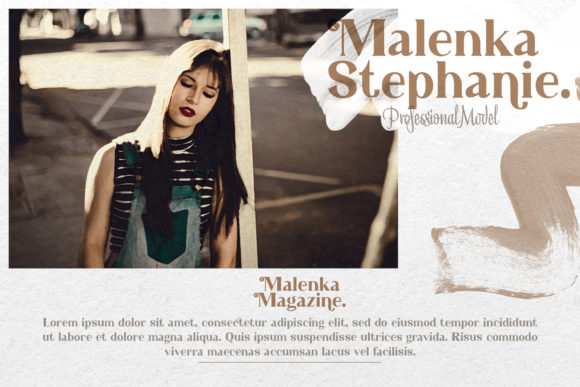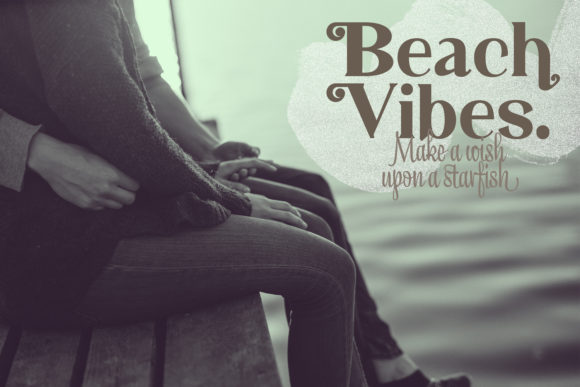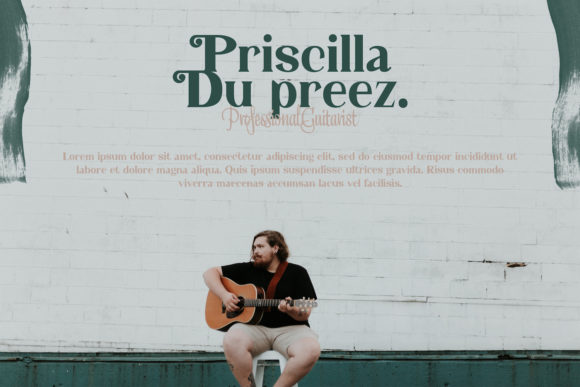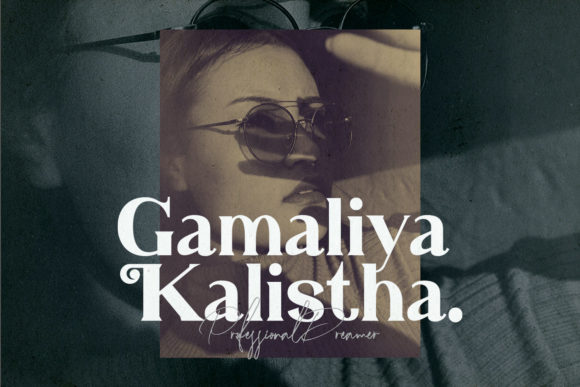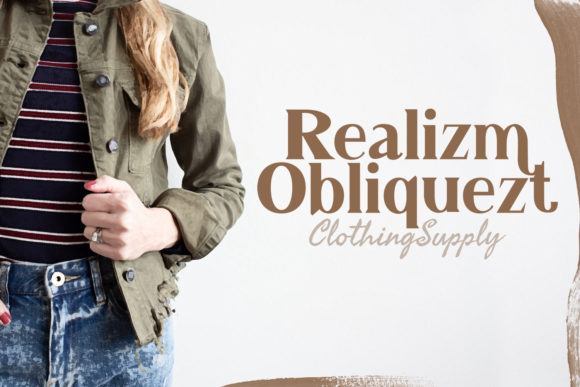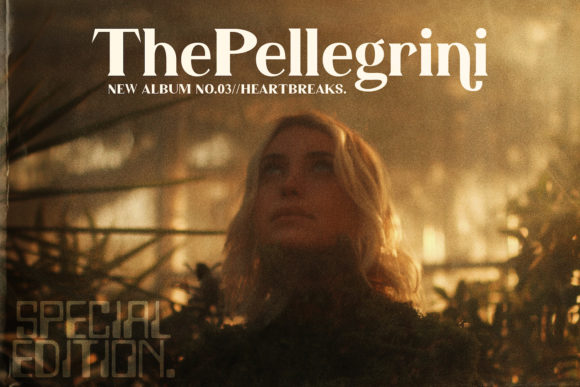
Introduction to Phantom Shrine Font
As designers, we’ve all been there – staring at a blank canvas, waiting for that perfect spark to ignite our creative project. And then, it happens – a font catches our eye, and suddenly, the possibilities seem endless. For me, that font was the Phantom Shrine Font, a stunning serif font that has been a game-changer in my design process.
With its incredibly versatile and stylish look, the Phantom Shrine Font is a design resource that’s hard to resist. Whether you’re working on a high-quality branding project or a creative blog post, this font is sure to elevate your design to the next level. And the best part? It’s PUA encoded, making it easy to access all the glyphs and swashes you need to create truly spectacular designs.
Key Features of Phantom Shrine Font
- High-quality design for creative projects, ideal for graphic designers and artists.
- Transparent background, allowing for easy customization and seamless integration with other design elements.
- Unique, intricate design elements make it an excellent choice for designers seeking a distinctive look.
- Perfect for use in digital design, including web and mobile applications, as well as print materials.
- High-resolution design ensures crisp, clear display even at large sizes.
- Designed as a design resource for professionals and hobbyists alike, ideal for a variety of creative projects.
Honest Review: Phantom Shrine Font
As a designer, I’m always on the lookout for high-quality design resources to elevate my creative projects. Recently, I stumbled upon the Phantom Shrine Font, and I’m excited to share my honest review with you.
What works well: ✨ The Phantom Shrine Font offers a unique, otherworldly aesthetic that’s perfect for designers looking to add a touch of mysticism to their projects. The font is available for free download, making it a great resource for those on a budget. I also appreciate the transparent background, which allows for seamless integration with other design elements.
What doesn’t work so well: ⚠️ One of the limitations of the Phantom Shrine Font is its limited character set. While it’s perfect for headings and titles, it may not be suitable for large blocks of text. Additionally, the font may not be compatible with all operating systems or software.
Overall, I’m impressed with the Phantom Shrine Font’s unique style and versatility. As a design resource, it’s a great addition to any designer’s toolkit. However, it’s essential to be aware of its limitations and use it judiciously in your creative projects.
- Unique, otherworldly aesthetic
- Limited character set
- May not be compatible with all operating systems or software
Tips for Getting the Most Out of Phantom Shrine Font
To get the most out of the Phantom Shrine Font, use it in conjunction with other design elements to create a cohesive and visually appealing design. Experiment with different font sizes and styles to add depth and interest to your design.
The Phantom Shrine Font is perfect for a variety of design projects, including creative portfolios, business cards, and brochures. Its high quality and versatility make it a great design resource for any creative project.